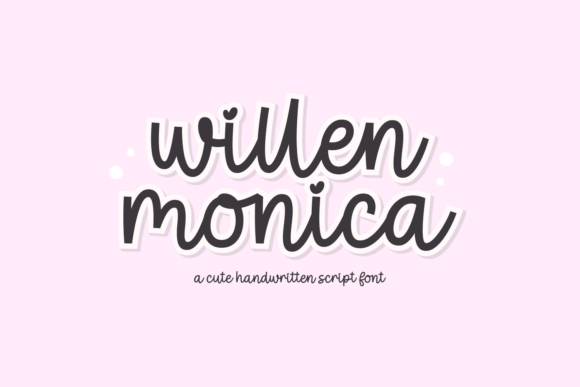
Introducing Willen Monica Font: The Cheerful and Playful Handwritten Font
Are you looking for a font that can add a touch of fun and playfulness to your designs? Look no further than Willen Monica Font. This cheerful and playful handwritten font is perfect for creating eye-catching greeting cards, stickers, kids’ merchandise, and fun logos. In this article, we’ll take a closer look at Willen Monica Font and explore its features, benefits, and uses.
What is Willen Monica Font?
Willen Monica Font is a modern, handwritten font that is designed to bring a smile to your face. Its bold yet friendly look makes it perfect for a wide range of design projects, from greeting cards and stickers to kids’ merchandise and fun logos. The font features charming heart accents that add a touch of whimsy and playfulness to your designs.
Key Features of Willen Monica Font
- Cheerful and Playful: Willen Monica Font is designed to be fun and playful, making it perfect for designs that require a lighthearted touch.
- Handwritten: The font features a handwritten style that gives it a personal and unique feel.
- Bold yet Friendly: Willen Monica Font is bold and eye-catching, yet friendly and approachable.
- Charming Heart Accents: The font features charming heart accents that add a touch of whimsy and playfulness to your designs.
Benefits of Using Willen Monica Font
There are many benefits to using Willen Monica Font in your designs. Here are a few:
- Unique and Eye-Catching: Willen Monica Font is a unique and eye-catching font that can help your designs stand out from the crowd.
- Versatile: The font is versatile and can be used for a wide range of design projects, from greeting cards and stickers to kids’ merchandise and fun logos.
- Easy to Read: Willen Monica Font is easy to read, even at small sizes, making it perfect for designs that require a lot of text.
- Fun and Playful: The font is fun and playful, making it perfect for designs that require a lighthearted touch.
Uses of Willen Monica Font
Willen Monica Font is a versatile font that can be used for a wide range of design projects. Here are a few ideas:
- Greeting Cards: Willen Monica Font is perfect for creating eye-catching greeting cards for special occasions like birthdays, holidays, and weddings.
- Stickers: The font is great for creating fun and playful stickers that kids will love.
- Kids’ Merchandise: Willen Monica Font is perfect for creating kids’ merchandise like t-shirts, mugs, and tote bags.
- Fun Logos: The font is great for creating fun and playful logos for businesses that want to stand out from the crowd.
Tips for Using Willen Monica Font
Here are a few tips for using Willen Monica Font in your designs:
- Use it with a Bold Color: Willen Monica Font looks great with bold, bright colors that match its playful personality.
- Experiment with Different Sizes: The font looks great at a variety of sizes, from small and delicate to large and bold.
- Pair it with Other Fonts: Willen Monica Font pairs well with other fonts that have a similar playful and whimsical feel.
- Use it to Add a Personal Touch: The font is perfect for adding a personal touch to your designs, whether it’s a greeting card or a kids’ t-shirt.
Willen Monica Font is a cheerful and playful handwritten font that is perfect for adding a touch of fun and whimsy to your designs. Its bold yet friendly look makes it perfect for a wide range of design projects, from greeting cards and stickers to kids’ merchandise and fun logos. With its charming heart accents and easy-to-read style, Willen Monica Font is a great choice for designers who want to create eye-catching and unique designs.
- What is Willen Monica Font? Willen Monica Font is a modern, handwritten font that is designed to be fun and playful.
- What are the key features of Willen Monica Font? The font features a bold yet friendly look, charming heart accents, and an easy-to-read style.
- What are some uses of Willen Monica Font? The font is perfect for creating greeting cards, stickers, kids’ merchandise, and fun logos.